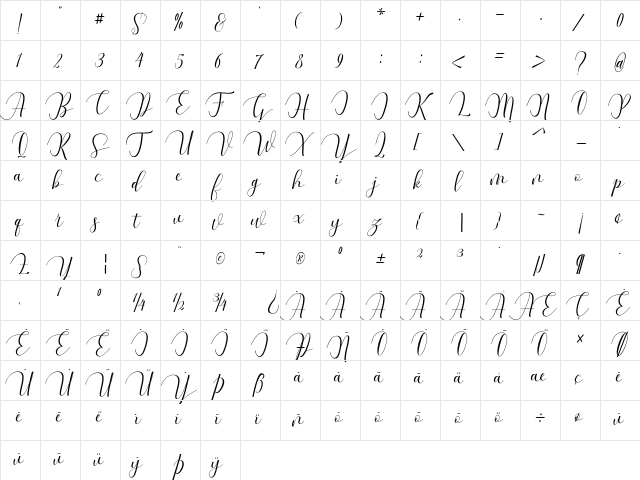
Dellima Regular
Design Context for Dellima Typeface
Dellima offers clean, dependable letterforms without strong stylistic allegiance, making it a practical choice for designers who need flexibility.
Pro Tip: Use Dellima in both headline and body roles to test its range before committing to a single application.